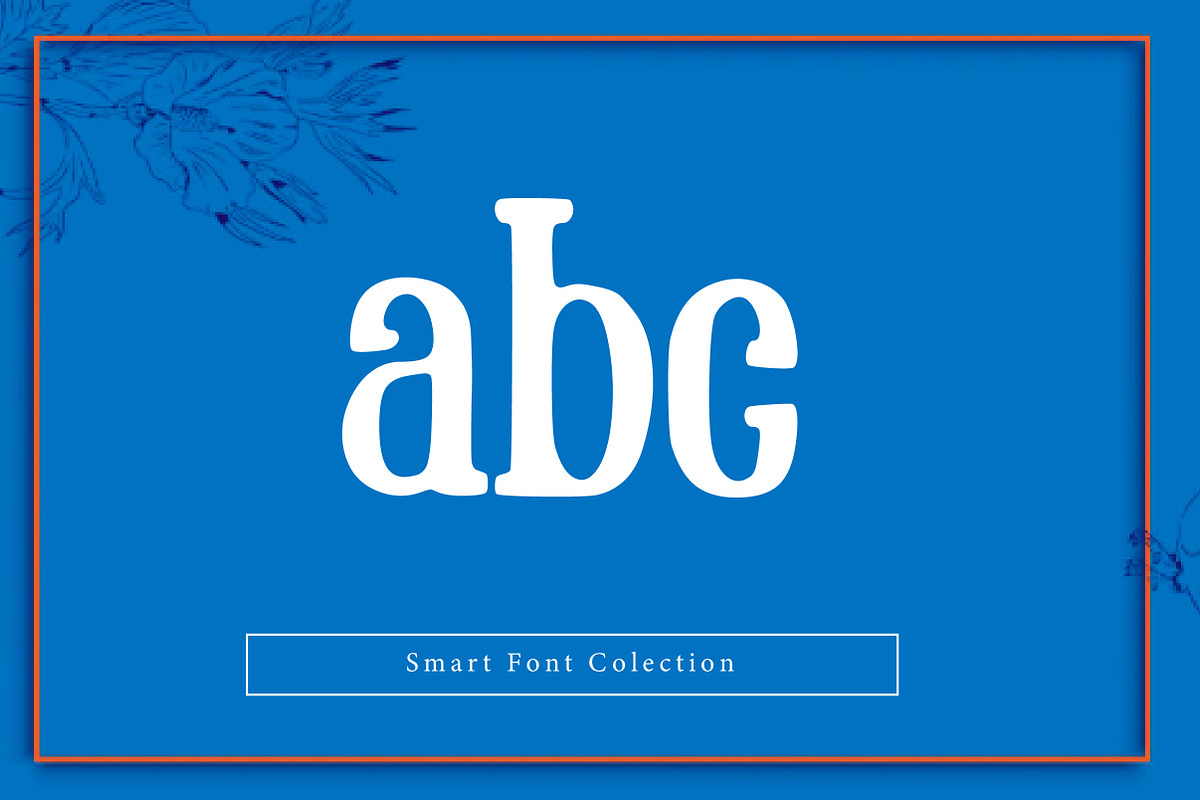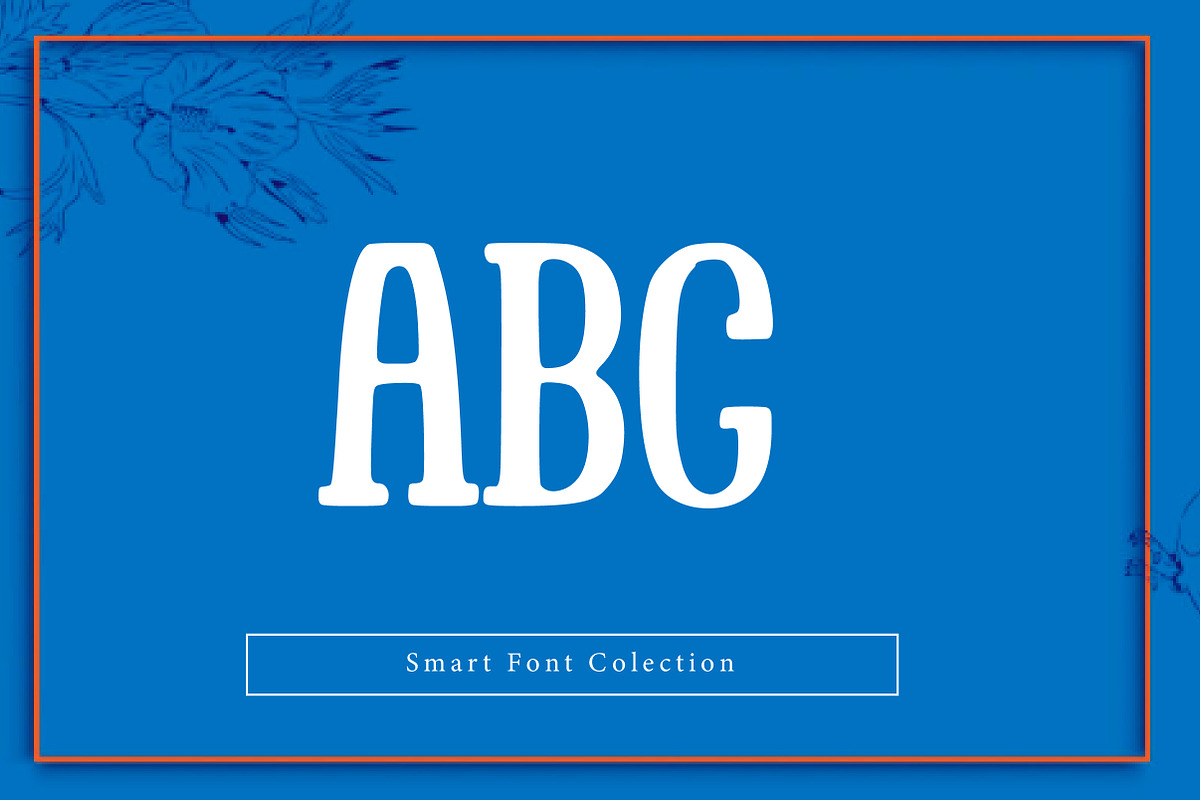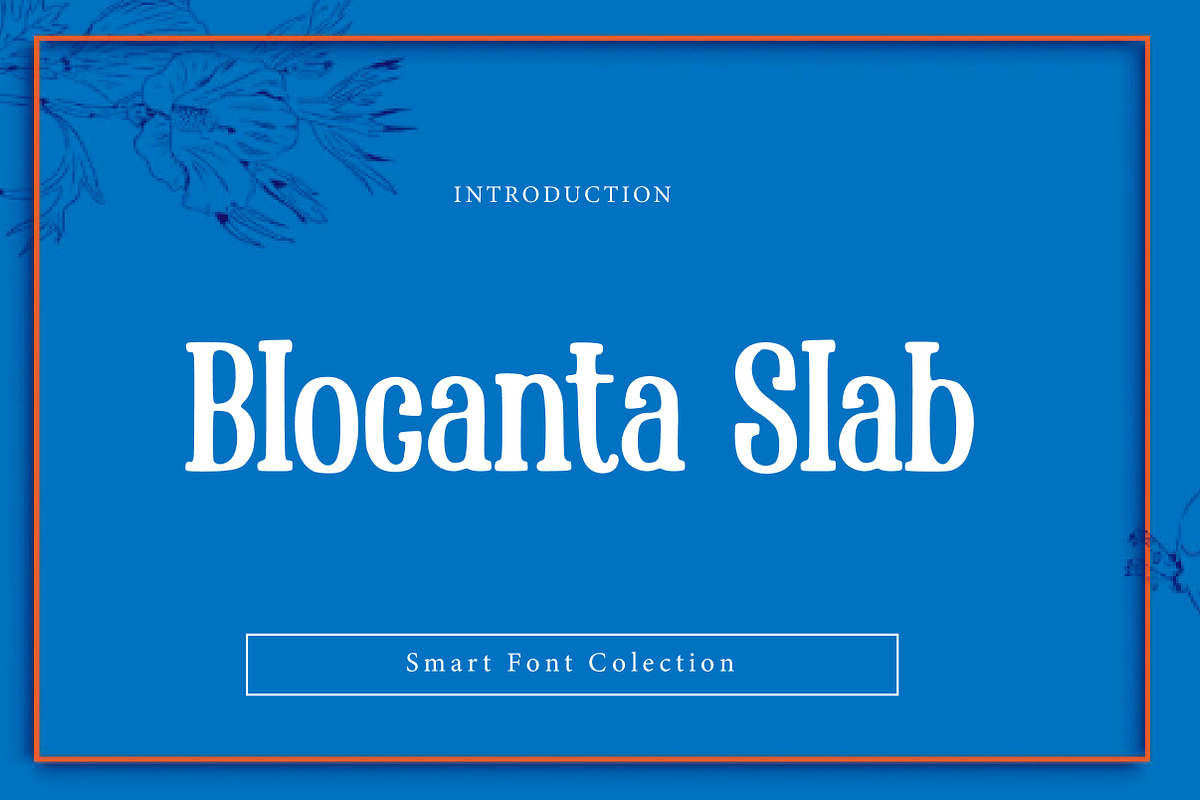
Blocanta Slab
Blocanta Slab is a bold and modern slab serif display font designed for strong visual impact and clear readability. With thick strokes, solid slab serifs, and a clean contemporary structure, this font is perfect for headlines, logos, branding, posters, packaging, signage, apparel, and digital designs. Blocanta Slab delivers a confident, powerful look that works great for both vintage-inspired and modern graphic styles.